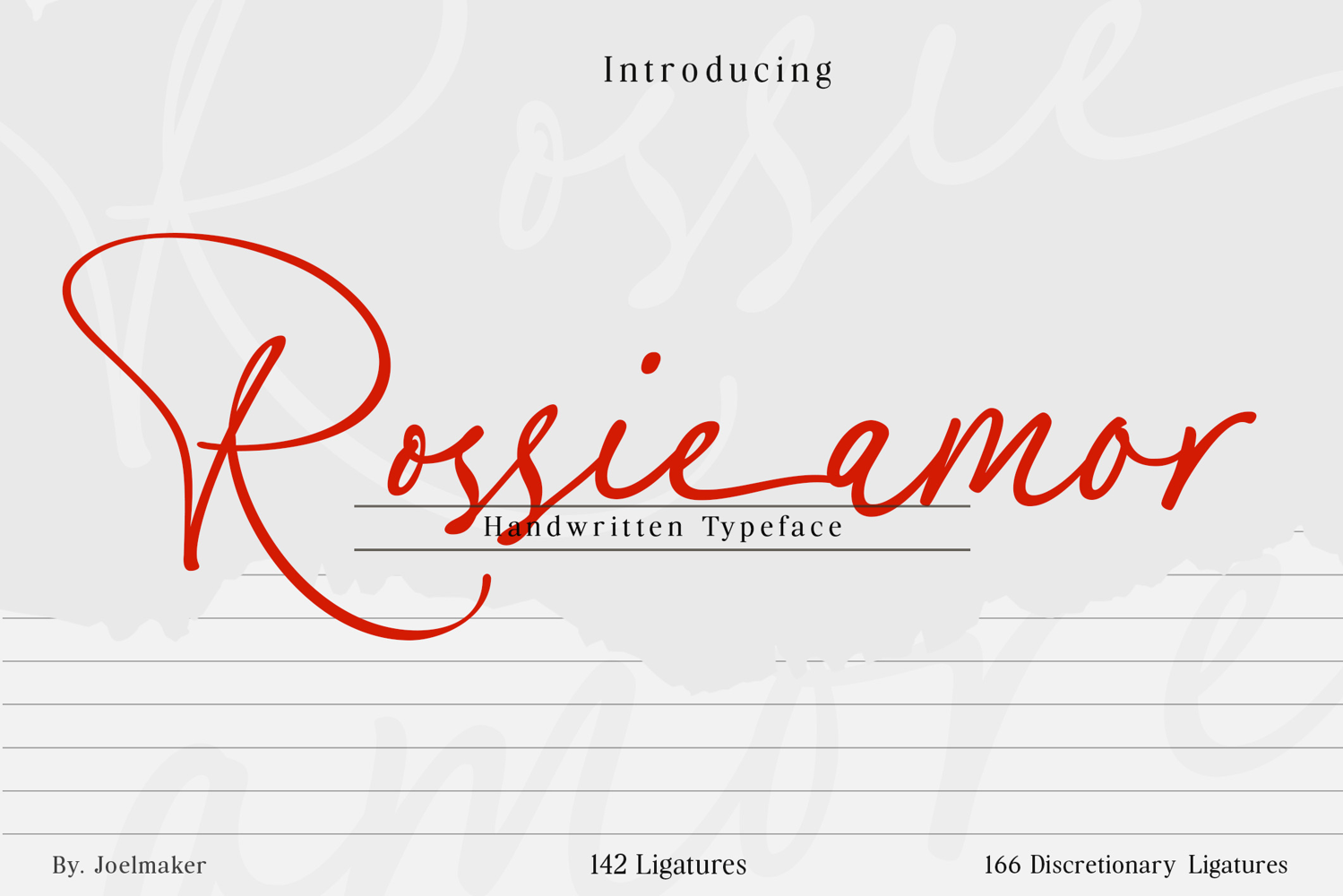
Rossie Amore
Rossie Amor is an elegant handwritten typeface crafted to bring a touch of sophistication and effortless charm to any design. With its smooth flowing strokes, graceful curves, and refined modern-calligraphy style, this font captures the warmth of natural handwriting while maintaining a high level of readability.
Designed with meticulous attention to detail, Retina Baltic features 142 standard ligatures and 166 discretionary ligatures, offering rich stylistic variety and beautifully connected letterforms. Every curve feels intentional, making it perfect for branding, invitations, logos, packaging, quotes, and any project that calls for a luxurious handwritten aesthetic.